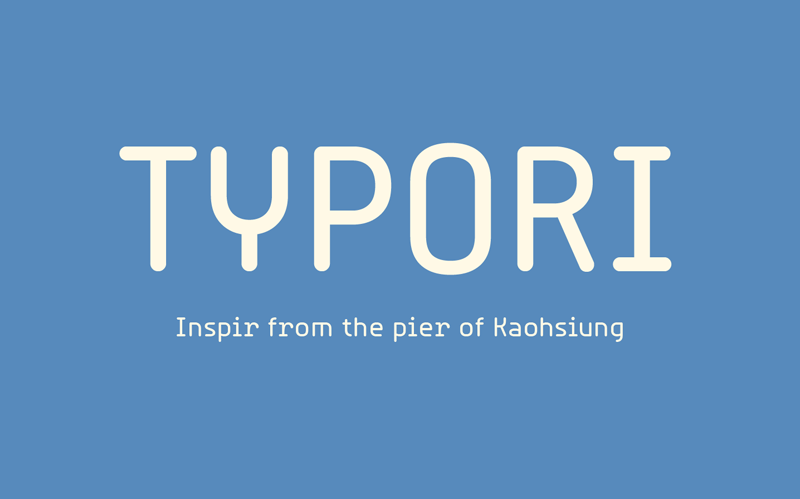
Font name: | Typori |
Categories | Basic, Fixed width |
Author: | ErikYin |
Note by ErikYin | |
This font is inspired from the pier of Kaohsiung & Thank you watching and used this! This font used commercially is USD$25. You can pay this by my PayPal and I'll send you a License Agreement. more detail: https://www.behance.net/gallery/77648235/Typori-Font This font is free for personal use. If you want commercial use or have any question plz contact me use email: erikin1205[at]gmail[dot]com |